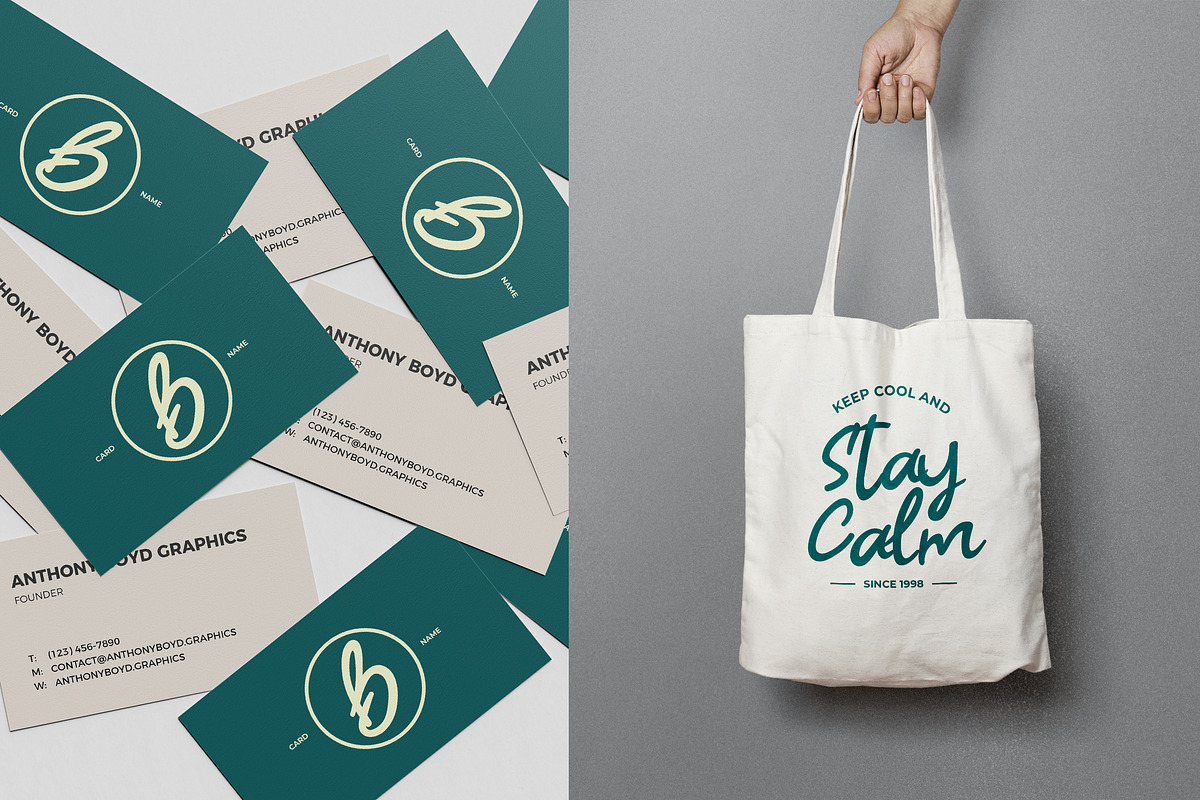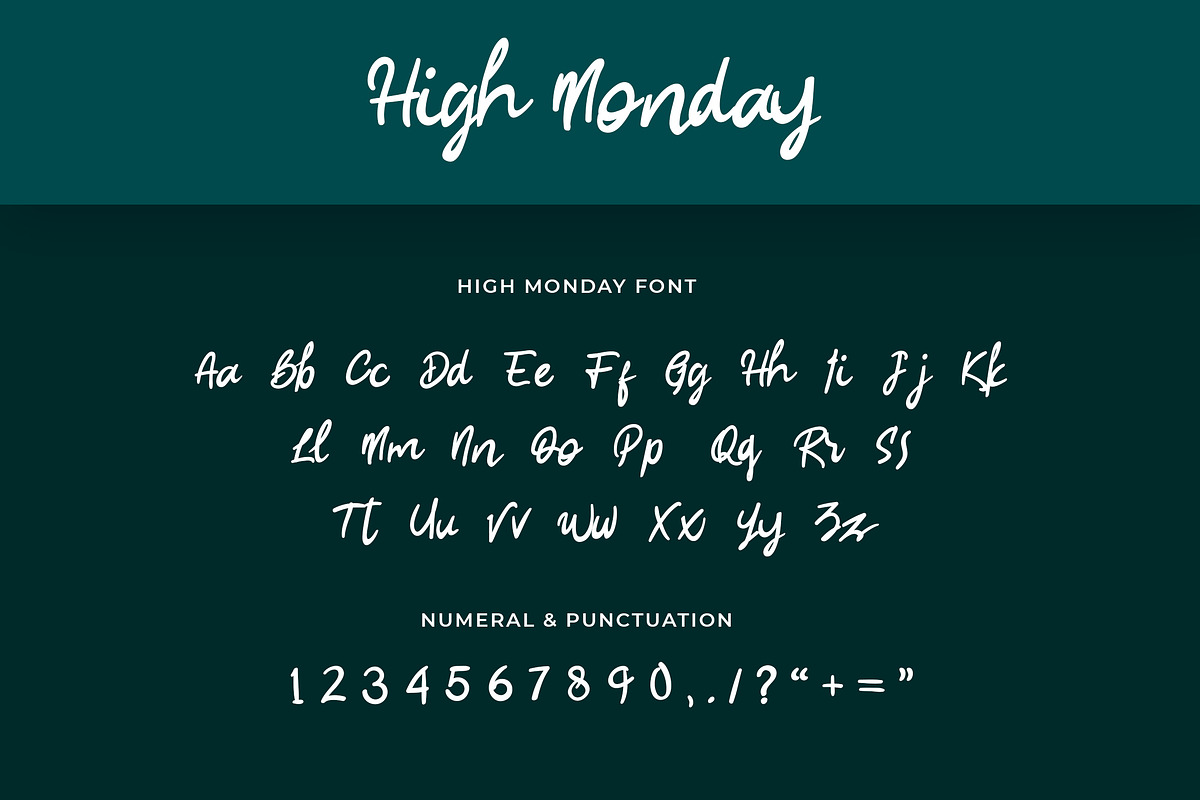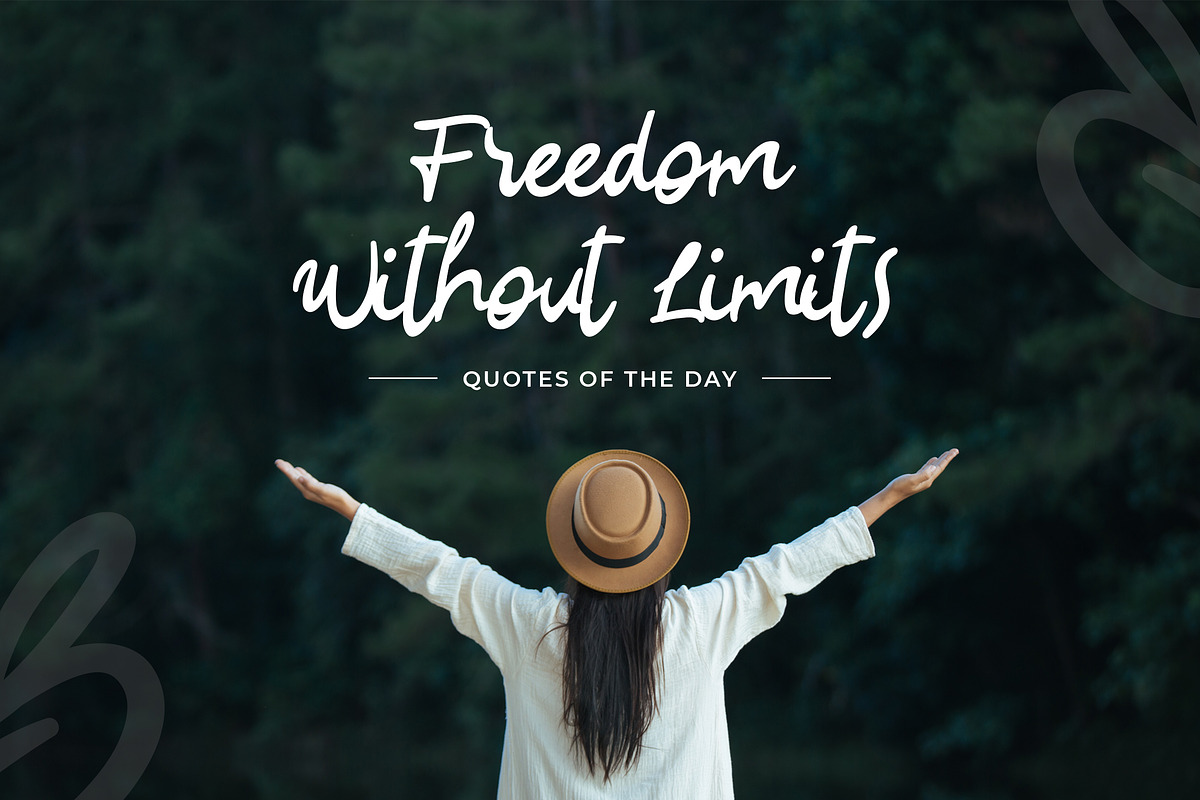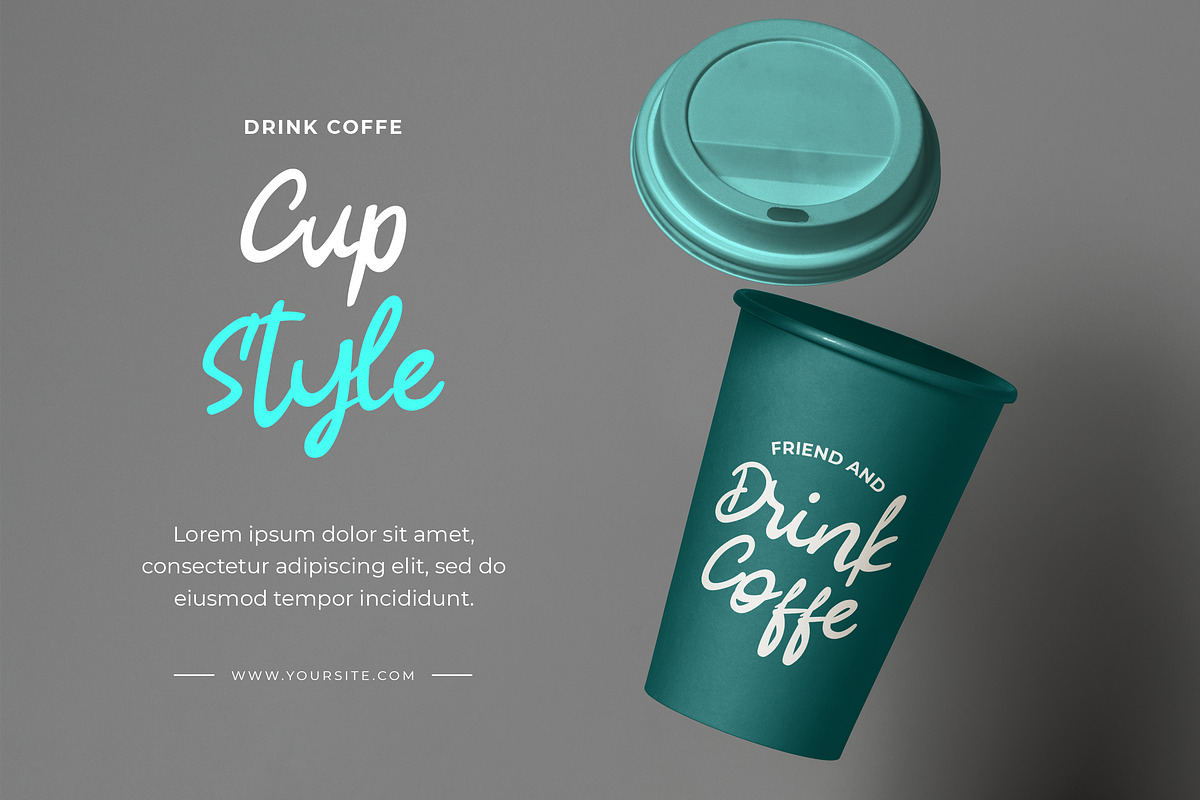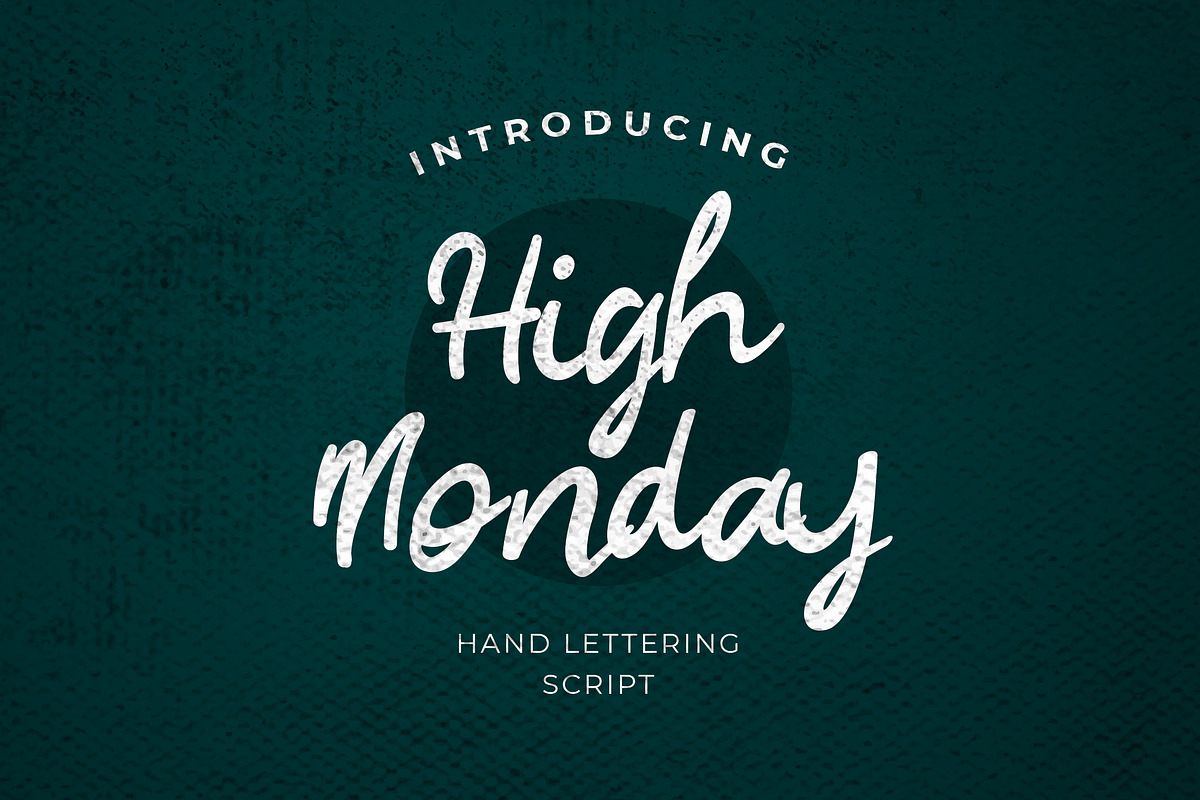
High Monday Handwritten Font
High Mondayis made a naturally handwritten font with a fresh modern script; delivering a stylish script which is guaranteed to add an eye-catching appeal to your logo designs, brand imagery, quotes, product packaging, merchandise & social media posts
- Ton of glyphs
- High Monday Regular
Why High Monday Handwritten Font is worth a look
High Monday Handwritten Font by UICreative fits naturally into Branding, posters, packaging, typography.